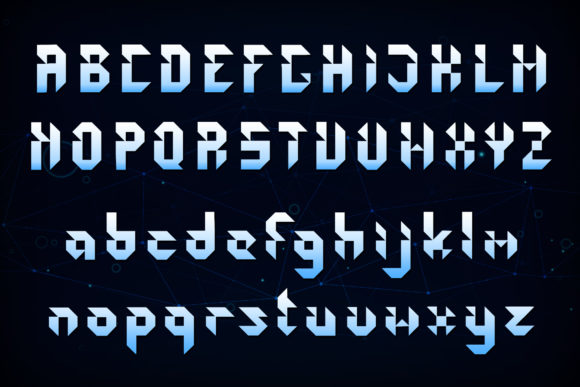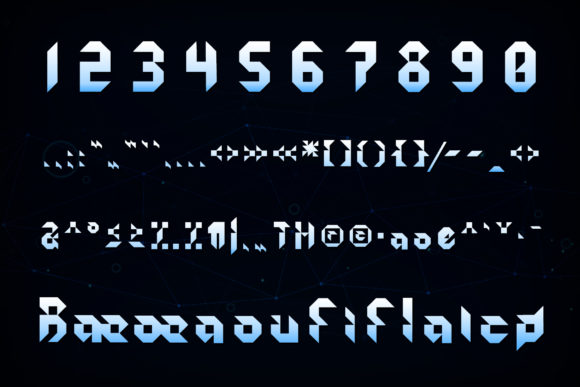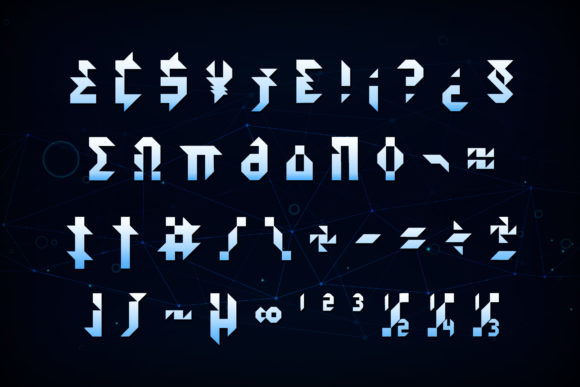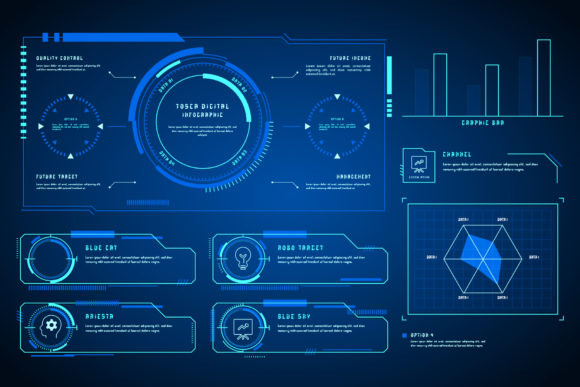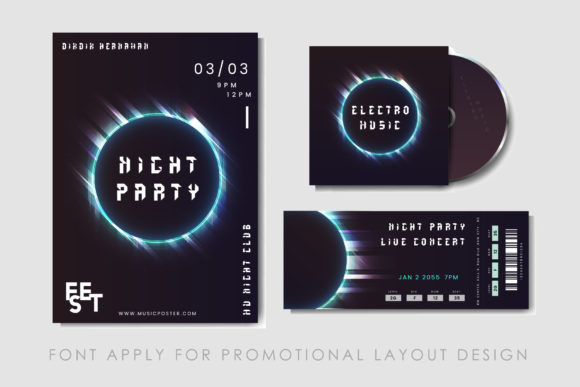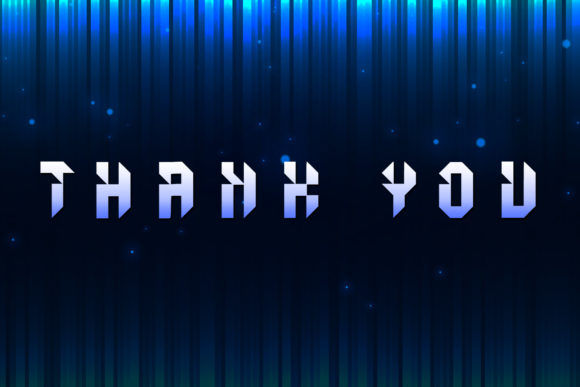
Introduction to Kids Shape Font
Kids Shape is a magical display font carefully created with a touch of futurism.
This is a bold combination of timeless elegance and futuristic simplicity It features an incredibly classic style, while still keeping a distinctly digital feel.
Key Features of Kids Shape Font
Why Choose Kids Shape Font?